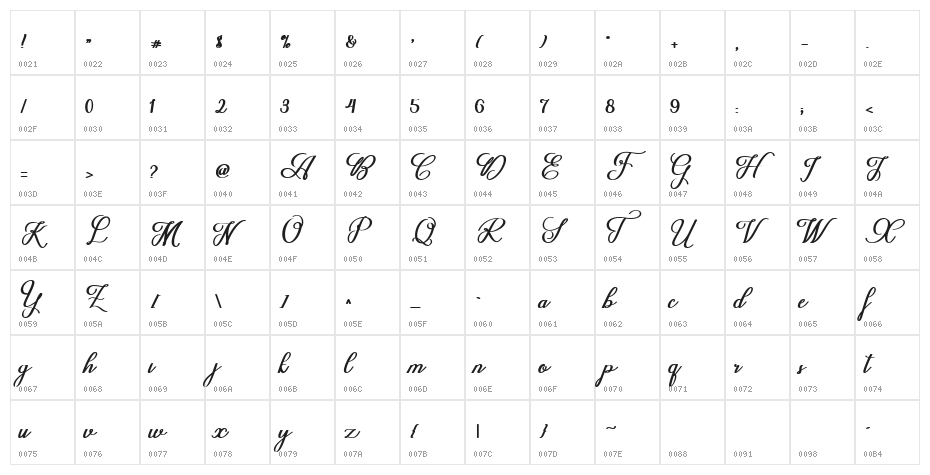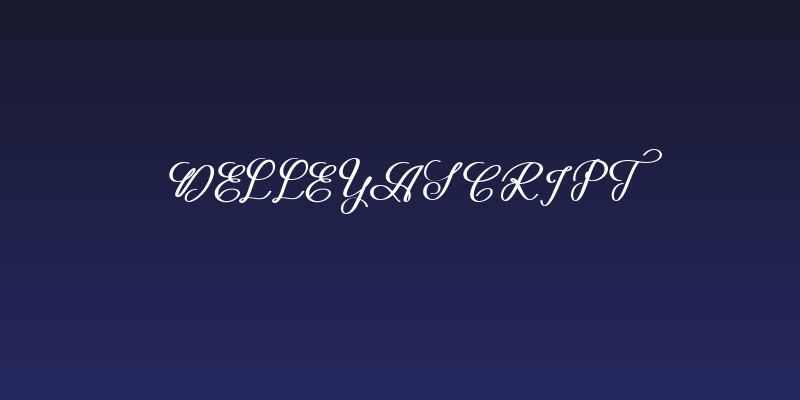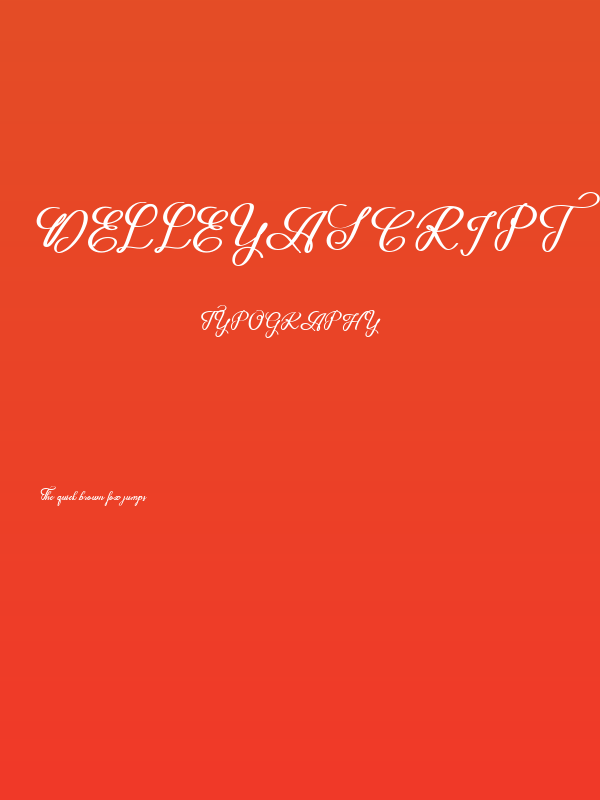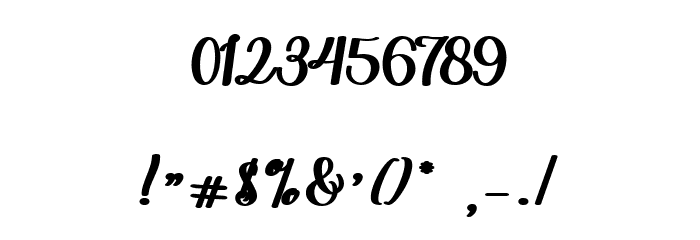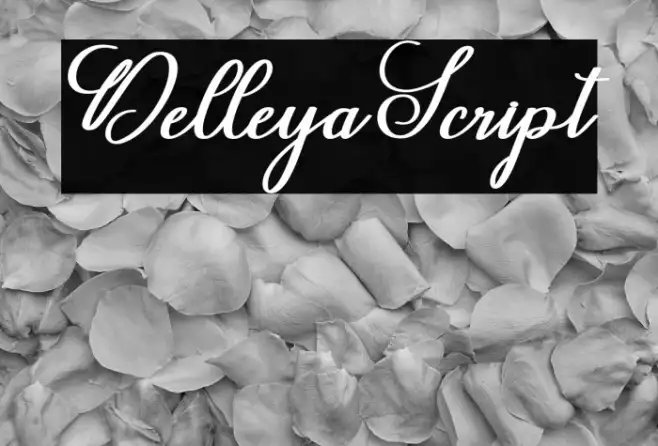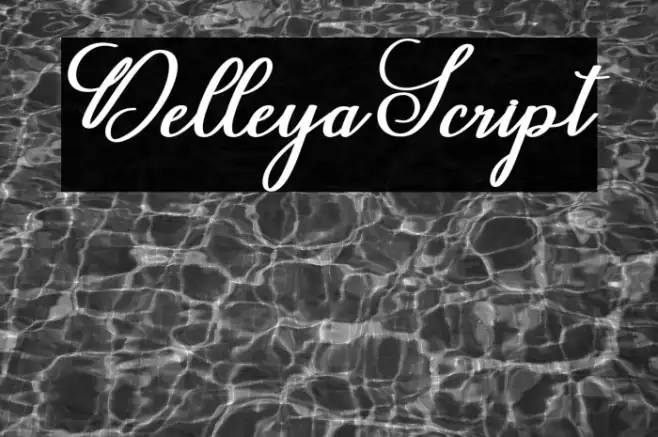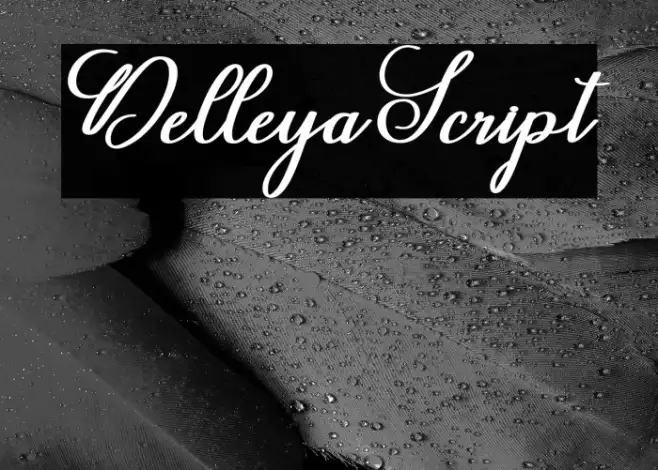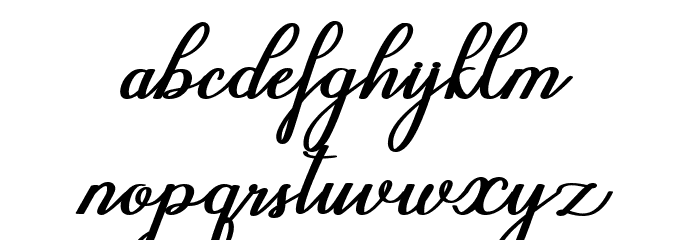
DelleyaScript Font
DelleyaScript Description
This elegant script font features flowing, cursive letterforms with a classic and sophisticated appearance. The uppercase letters are ornate, with intricate loops and swashes that add a touch of formality and grace. The lowercase letters maintain a smooth, connected style, enhancing readability while retaining an artistic flair. The numerals are consistent with the overall script style, offering a harmonious look. Special characters are thoughtfully designed to match the font's aesthetic, making it suitable for a variety of decorative applications.
| Proposed Projects | Ideal for wedding invitations, elegant branding, greeting cards, and formal event programs. |